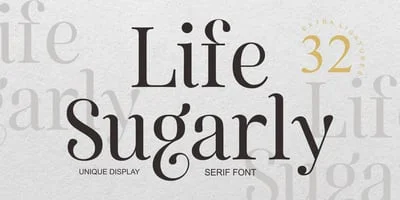
Life Sugarly Font
The Life Sugarly Font excels in various design applications including sweet bakery branding, confectionery shop signage, candy store marketing, dessert restaurant communications, sugar craft packaging, cheerful children's party materials, delightful cafe identities, sweet treat promotions, joyful celebration designs, and whimsical lifestyle brands that demand sugary sweetness and deliciously playful sophistication.
What makes the Life Sugarly Font exciting is its delicious embodiment of sweetness and joy through letterforms that capture the essence of life's sweetest moments and confectionery delight. This typeface demonstrates exceptional playfulness through carefully crafted characters that suggest the smooth curves of candy canes, the gentle swirls of frosting, and the irresistible appeal of perfectly crafted confections. The font's sweet personality makes it perfect for dessert businesses and celebration brands seeking to communicate pure joy, delicious quality, and the kind of sugar-sweet happiness that makes life more delightful through typography that literally tastes like sweetness.
The Life Sugarly Font family typically includes delicious weight variations that enhance the confectionery aesthetic, featuring playful styling options and extended character sets optimized for sweet communications and joyful applications. These family options often include candy-inspired alternates, sweet decorative elements, and confectionery symbols that provide designers with comprehensive tools for creating authentically sweet typography that celebrates the joy of desserts while maintaining contemporary design appeal and delicious visual impact.
Confectionery professionals and celebration brands consistently select Life Sugarly Font for projects requiring typography that communicates pure sweetness and joyful delight. This typeface delivers exceptional performance in dessert marketing, celebration branding, and sweet communications where establishing happiness and creating irresistible appeal is essential for customer attraction. The font's sugary character makes it particularly effective for children's products and celebration applications. Download Life Sugarly Font today to access this delightful typeface that transforms communications with its sugary sweetness and joyful sophistication, creating compelling confectionery experiences that celebrate the sweetest moments in life while maintaining the delicious appeal that makes content absolutely irresistible to sweet-loving audiences everywhere.